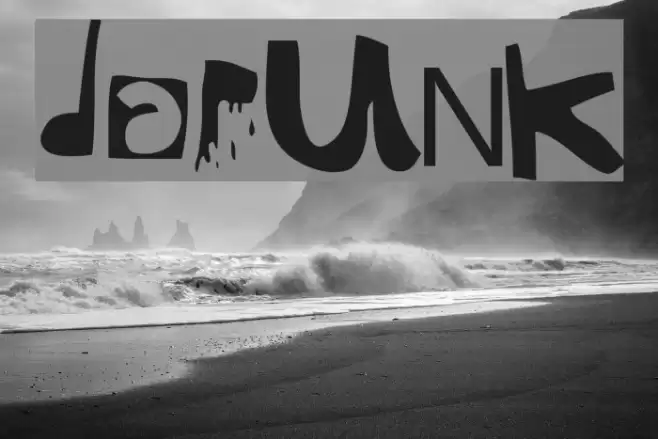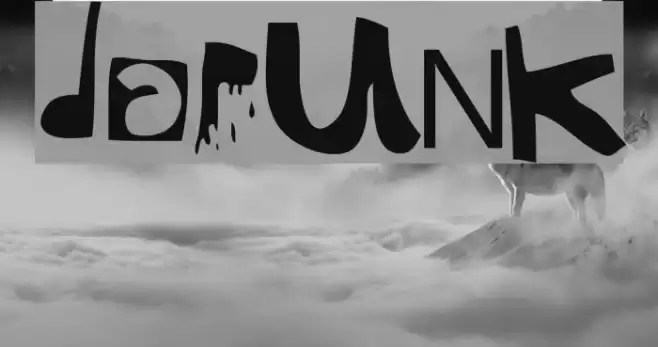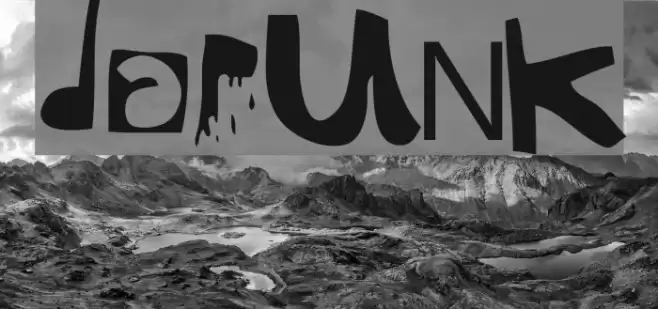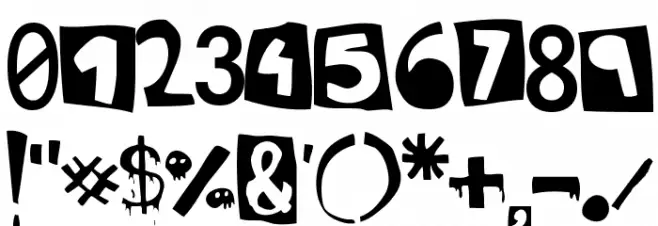
This font exhibits a bold and playful design with a distinctly irregular and edgy appearance. Each character is uniquely styled, featuring a mix of sharp angles and rounded edges, creating a dynamic and energetic feel. The uppercase and lowercase letters are creatively distorted, with some characters appearing to drip or melt, adding a sense of movement and unpredictability. The numbers and special characters maintain this quirky style, ensuring consistency across the font. This font is ideal for projects that require a bold statement and a touch of rebellion or creativity.
A bold, playful font with irregular, edgy characters and a dynamic, energetic feel from Uncategorized fonts.
- Proposed Projects: Perfect for album covers, posters, street art designs, and any project needing a bold, rebellious touch.
- Overall Style: Modern, Decorative